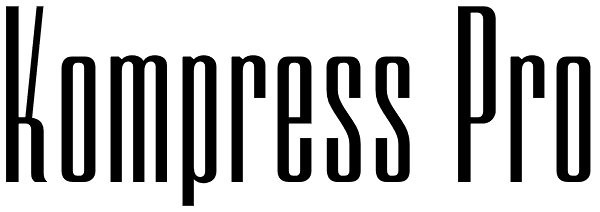
Kompress Pro
Kompress Pro - a font family of two highly compressed sans serif fonts, regular and shadowed. Both fonts contain West and East European character sets, as well as Cyrillic glyphs. This multilingual font family is well suited for decorative purposes.
Kompress Pro Shadow
Kompress Pro